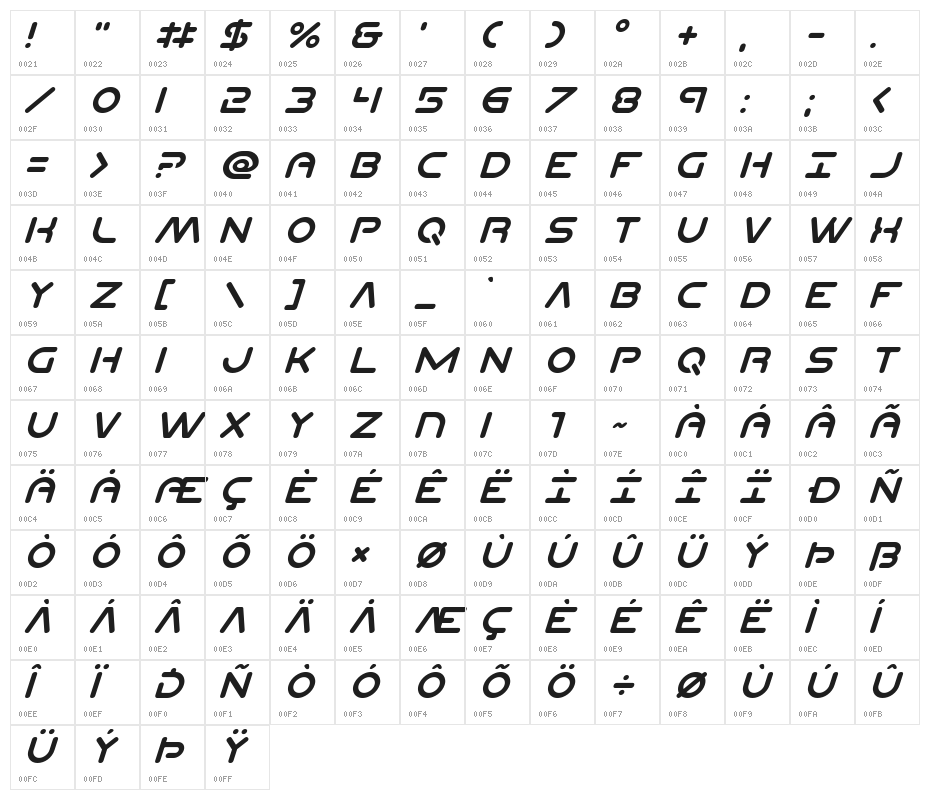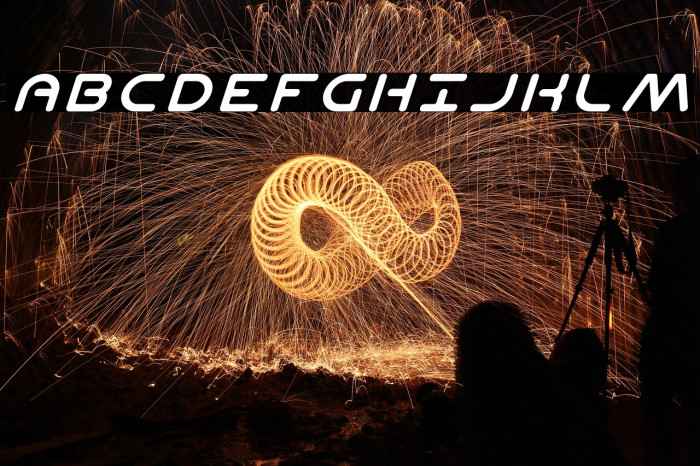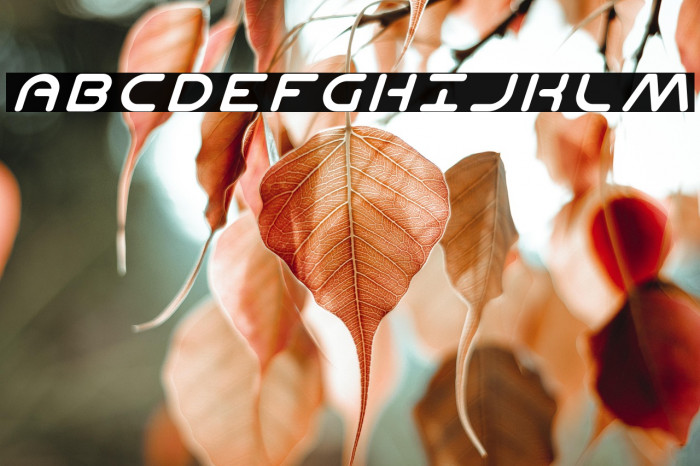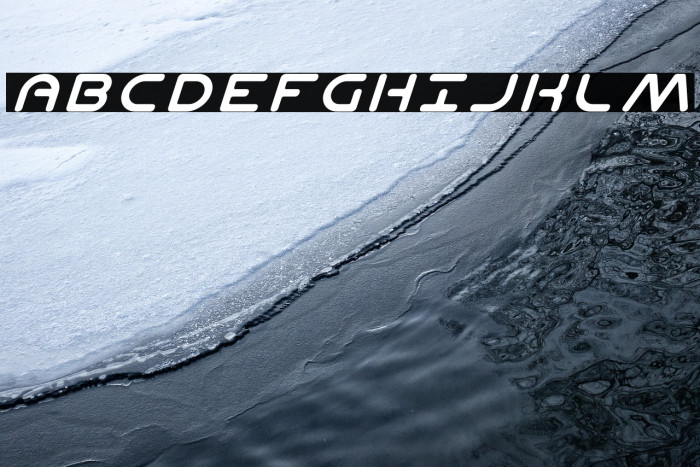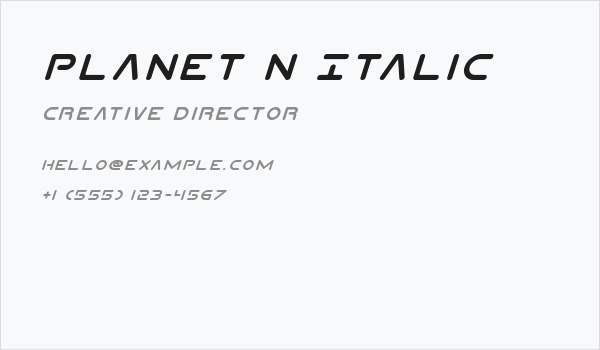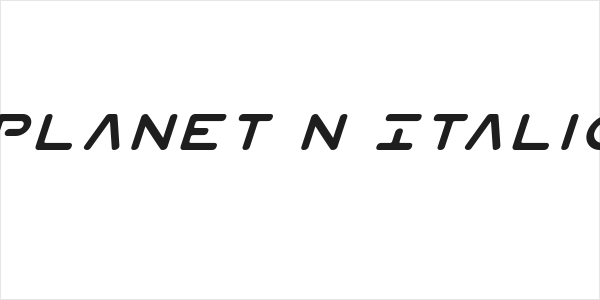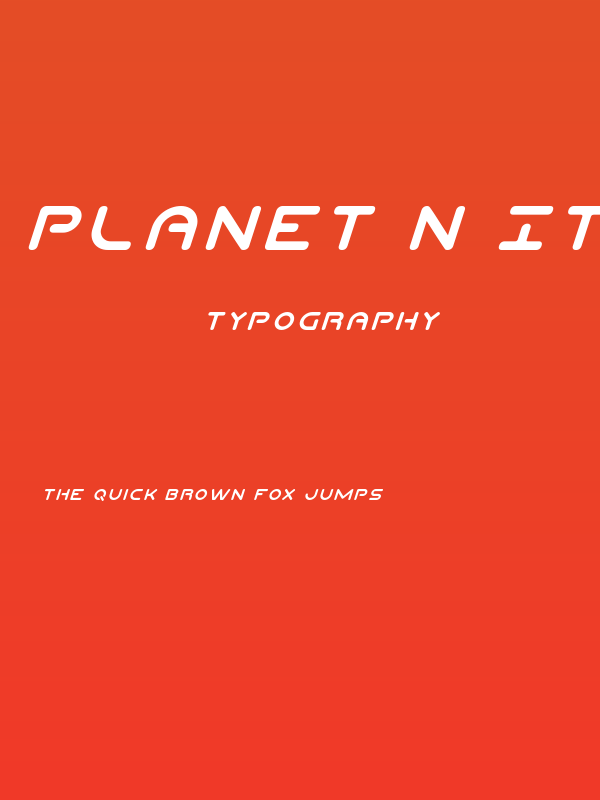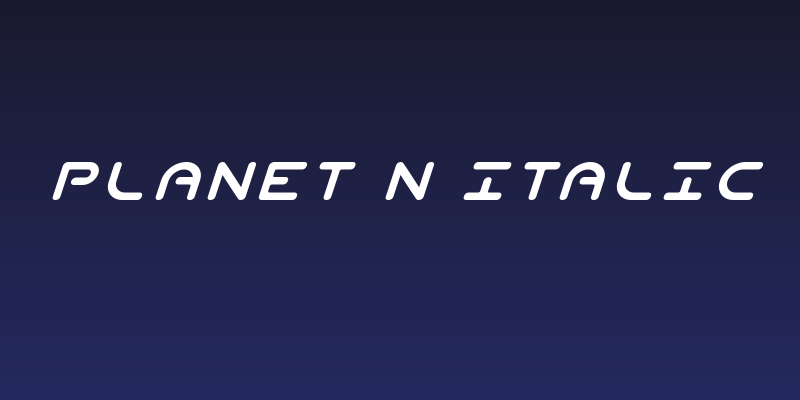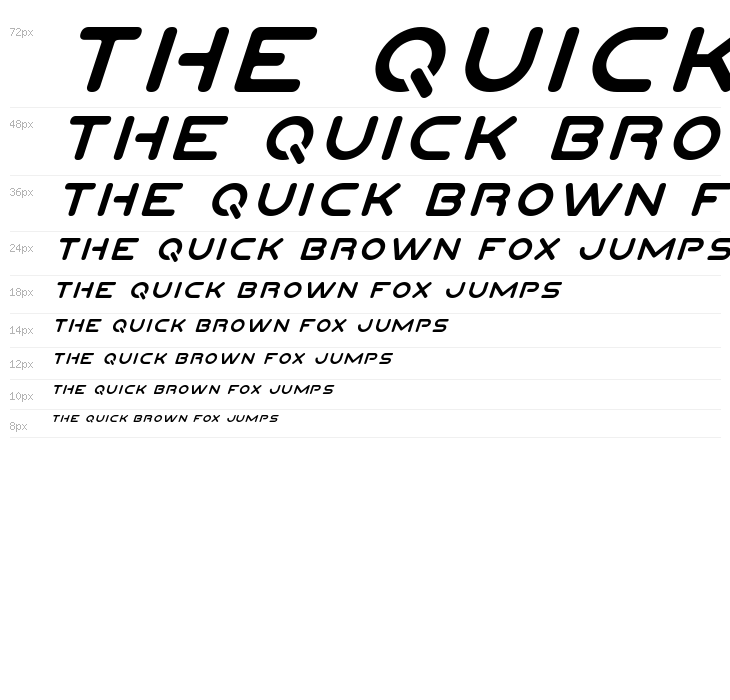
Planet N Italic Font
Planet N Italic Description
This font features a sleek, futuristic design with smooth curves and a slightly italicized slant, giving it a dynamic and modern appearance. The characters are uniformly bold, with consistent stroke thickness that provides a sense of stability and strength. The rounded edges and open counters enhance readability while maintaining a stylish and contemporary look. The font's geometric structure is evident in the symmetrical shapes and balanced proportions, making it suitable for a variety of digital and print applications. The numerals and special characters are designed to match the overall aesthetic, ensuring a cohesive visual experience.
| Use Case | Headlines, Logos, Digital interfaces |
| Proposed Projects | Ideal for technology branding, sci-fi themed designs, modern advertising, and digital interfaces. |